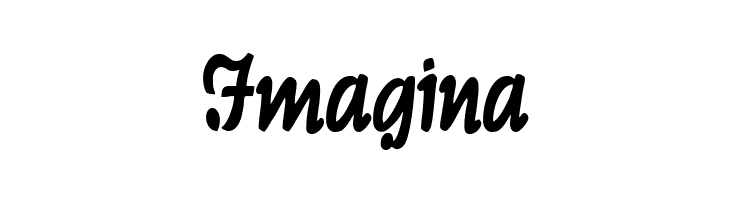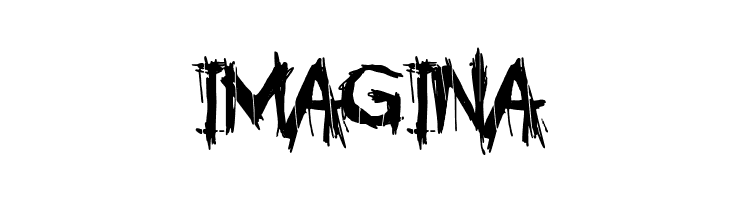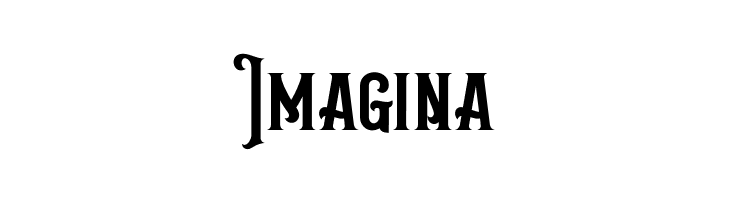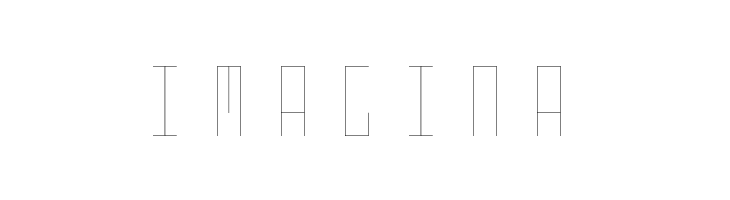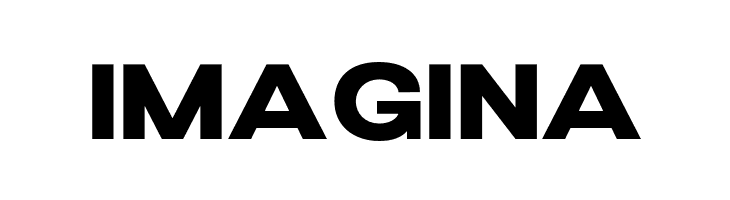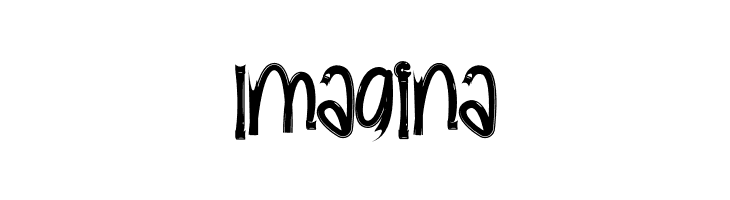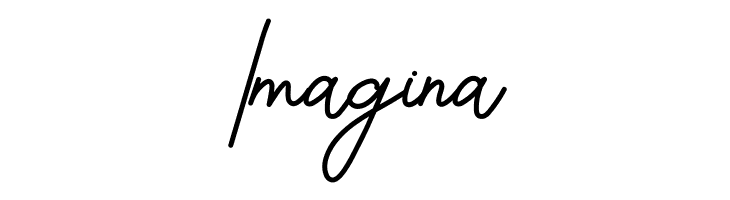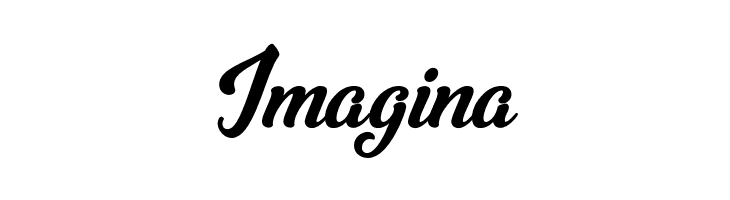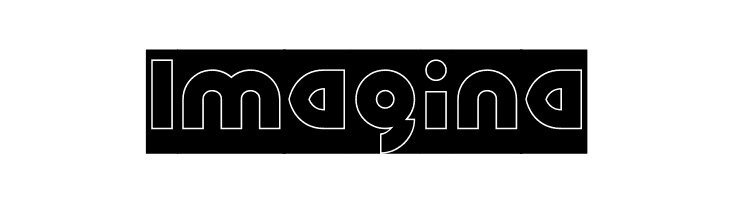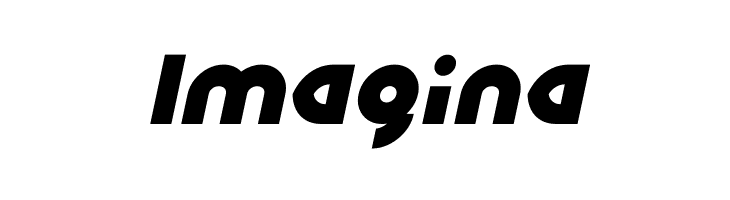
An elegant and flowing script font with smooth curves and connected letters.
A bold, modern sans-serif font with clean lines and uniform strokes.
A bold, cursive font with elegant, flowing lines and intricate details.
A bold, expressive script font with elegant curves and a dynamic style.
An elegant, flowing script font with intricate detailing and decorative flourishes.
A fluid, cursive font with a natural handwritten style and medium contrast.
A lively, flowing script font with a natural handwritten style.
A modern, geometric font with thin, straight lines and a minimalist style.
A delicate and elegant script font with flowing, cursive letterforms.
A bold, decorative font with vintage flair and intricate details.
A decorative font with geometric shapes and sharp angles, offering a modern and edgy style.
A playful, hand-drawn font with a whimsical and casual style.
A playful, casual handwritten font with fluid, connected letterforms.
A playful, hand-drawn font with bold outlines and quirky character designs.
A bold, expressive handwritten font with dynamic strokes.
A playful, hand-drawn font with a 3D sketch effect.
A tall, narrow font with a distressed, vintage texture.
A pixelated, retro-style font with a grid-like structure.
A bold, geometric font with rounded edges and a modern aesthetic.
A bold, geometric font with a futuristic and avant-garde style.
A bold, italicized font with a modern, dynamic style and geometric shapes.
A hollow, geometric font with a futuristic and bold aesthetic.
A hollow, inverse font with bold, geometric shapes and a modern, futuristic look.
A bold, geometric font with a futuristic and cohesive design.
A bold, geometric font with a futuristic and modern design.
Hand-drawn, rounded sans-serif with playful character.
A flowing, artistic font with curvilinear, hand-drawn style.
A bold, hand-drawn font with a unique and artistic style.
A bold, artistic font with a playful, brush-like texture and dynamic curves.
A chaotic, edgy font with jagged, rough edges and irregular strokes.
A pictorial font featuring diverse animal and insect illustrations as glyphs.
A bold, playful script font with rounded edges and a whimsical style.
A bold, dynamic script font with a playful and energetic style.